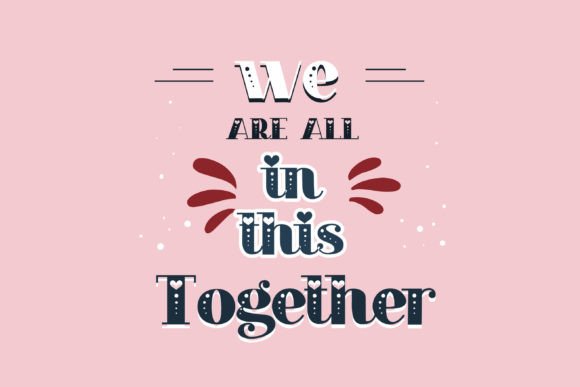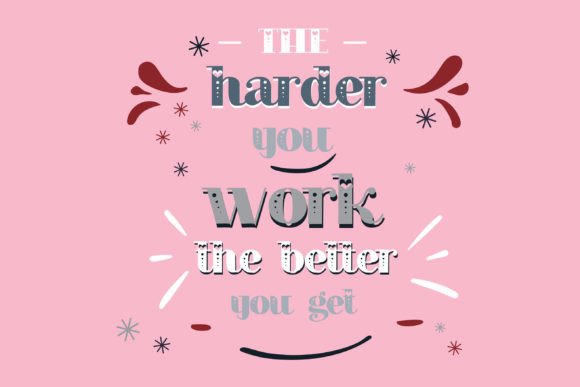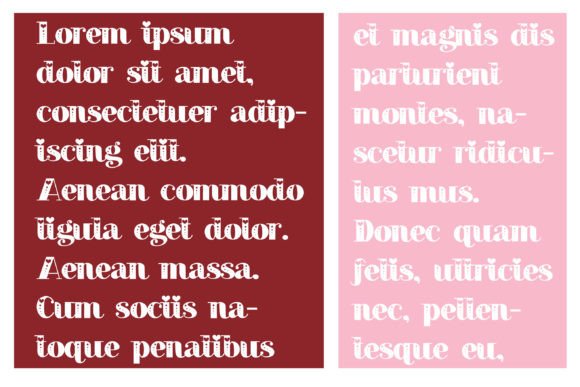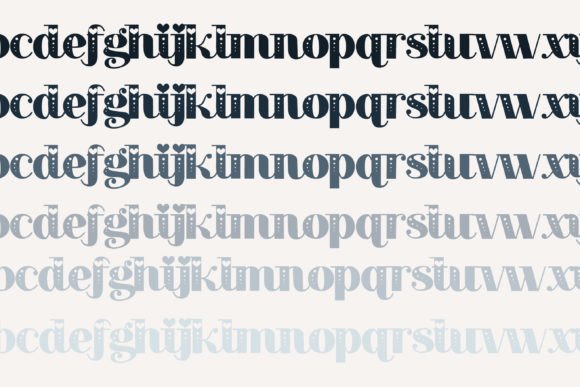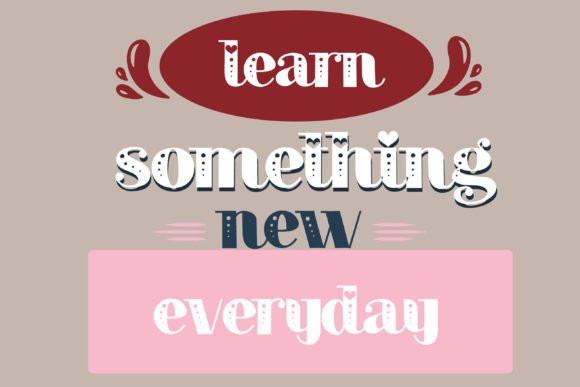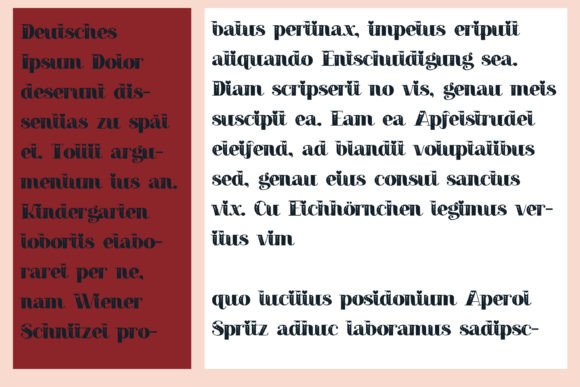
Introduction to Long Island Love Font
This heart-infused font is a combination of script and serif and became an adorable decorative font.
Fall in love with it and bring your projects to the highest levels .
Key Features of Long Island Love Font
Why Choose Long Island Love Font?
Long Island Love Font offers exceptional quality and versatility, making it a valuable addition to your design toolkit. Whether you’re creating for personal projects or commercial use, Long Island Love Font delivers professional results.